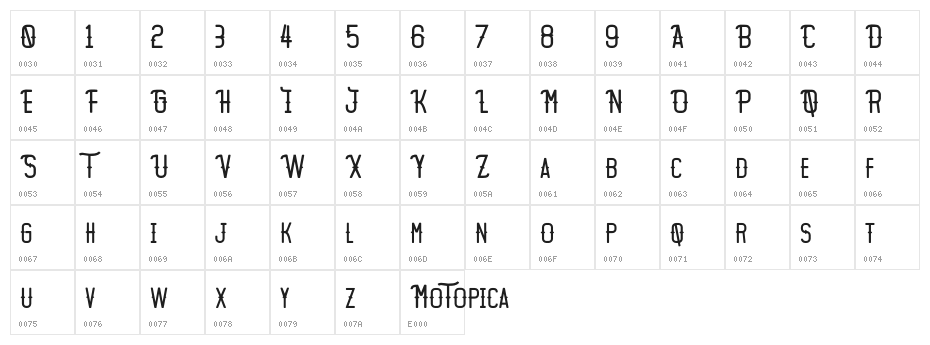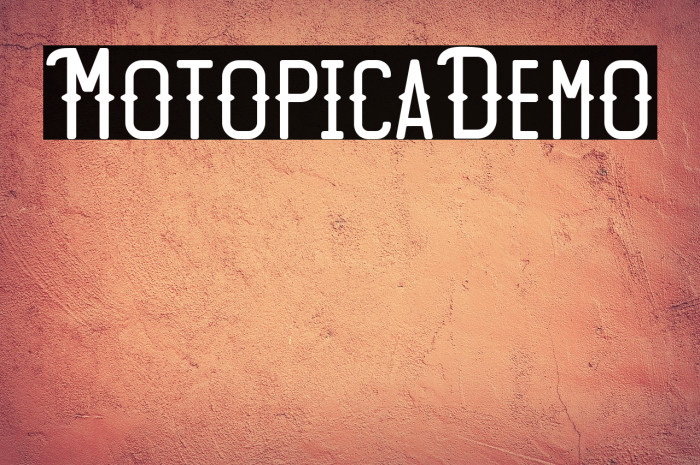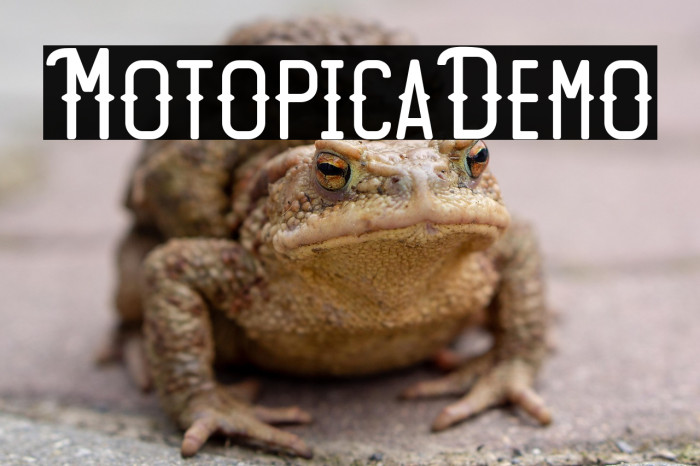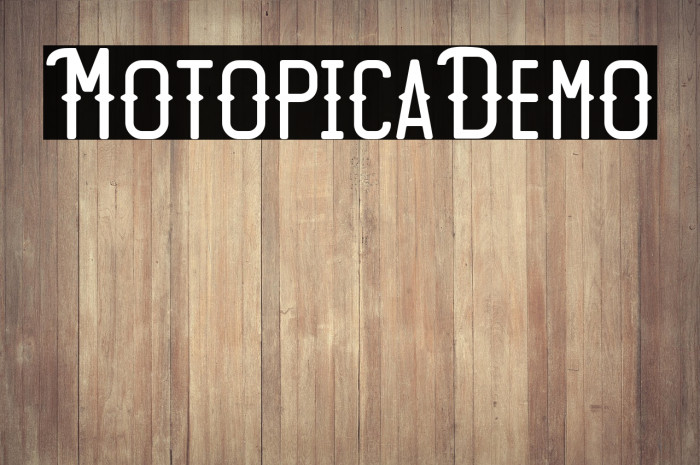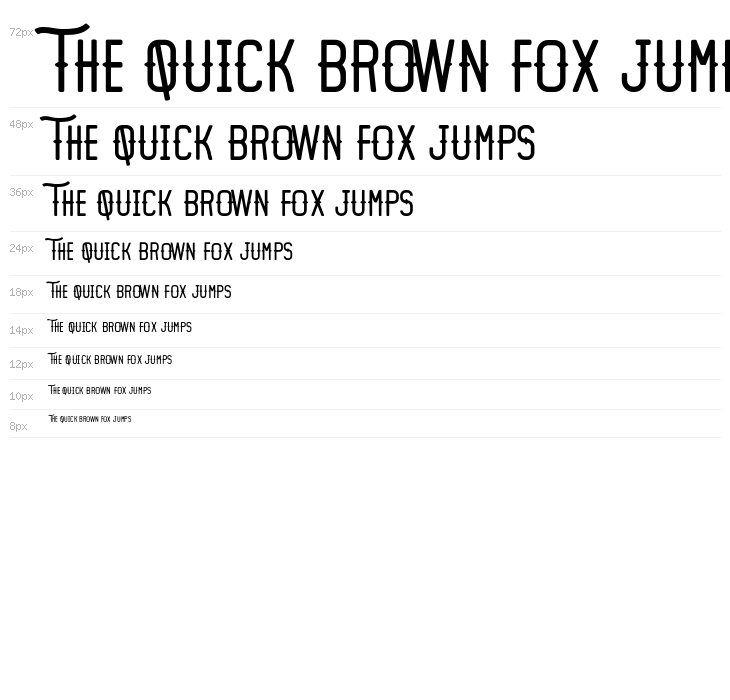
Motopica-Demo Font
Motopica-Demo Description
This font features a unique blend of modern and vintage aesthetics, characterized by its bold, monospaced design. The letters are constructed with a consistent stroke width, giving it a uniform appearance. The uppercase and lowercase characters maintain a similar height, enhancing its geometric style. The font includes numerals and a selection of special characters, all designed with the same attention to detail. The overall look is clean and structured, making it suitable for a variety of design projects.
Use CaseHeadlines, Logos, Branding
Proposed ProjectsIdeal for branding, posters, headlines, and digital interfaces where a strong, structured appearance is desired.